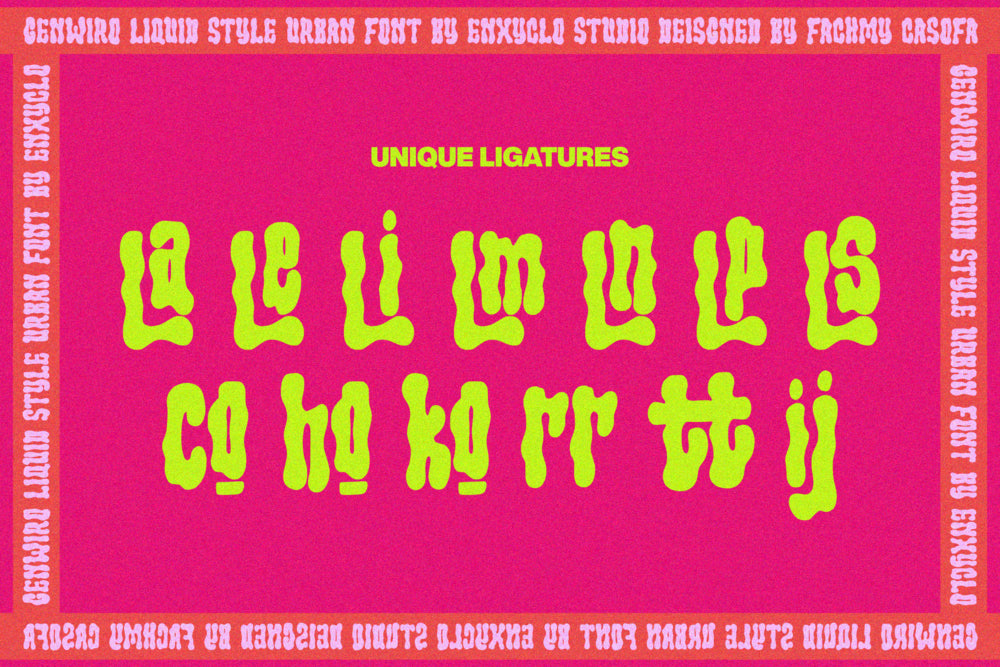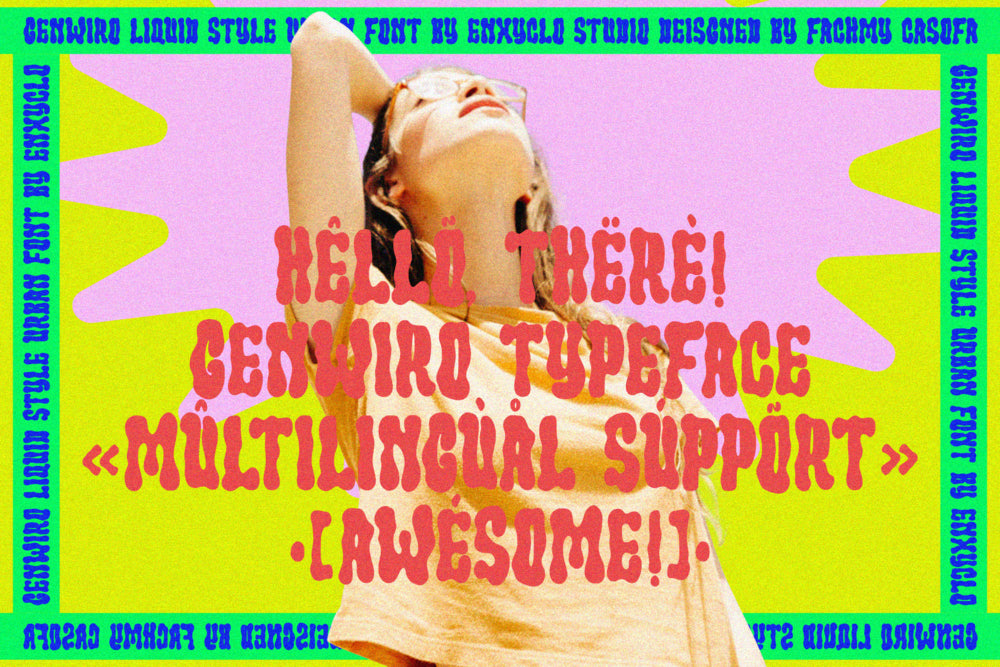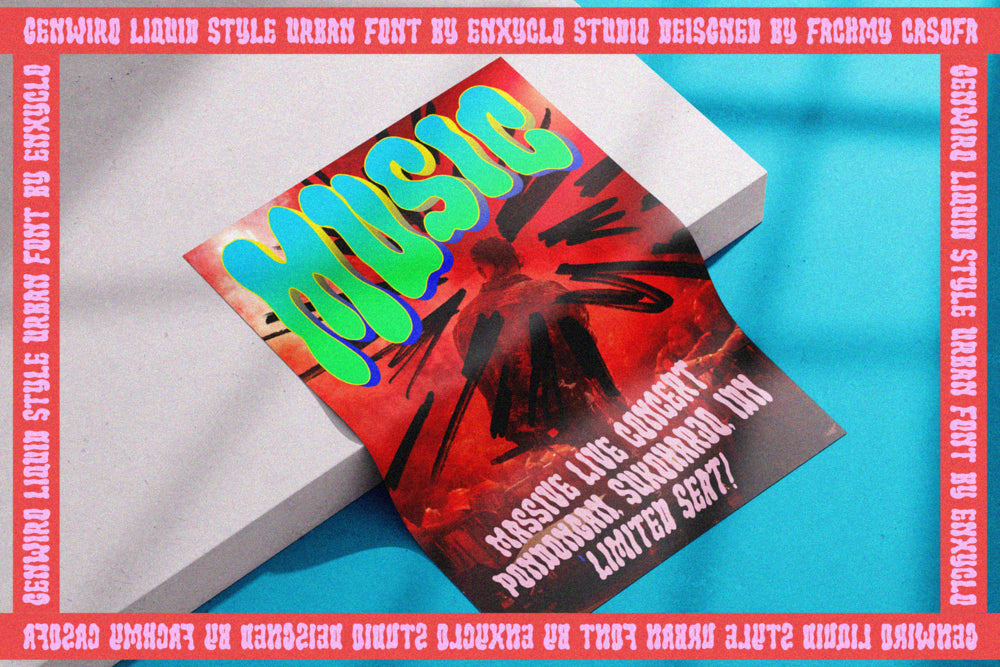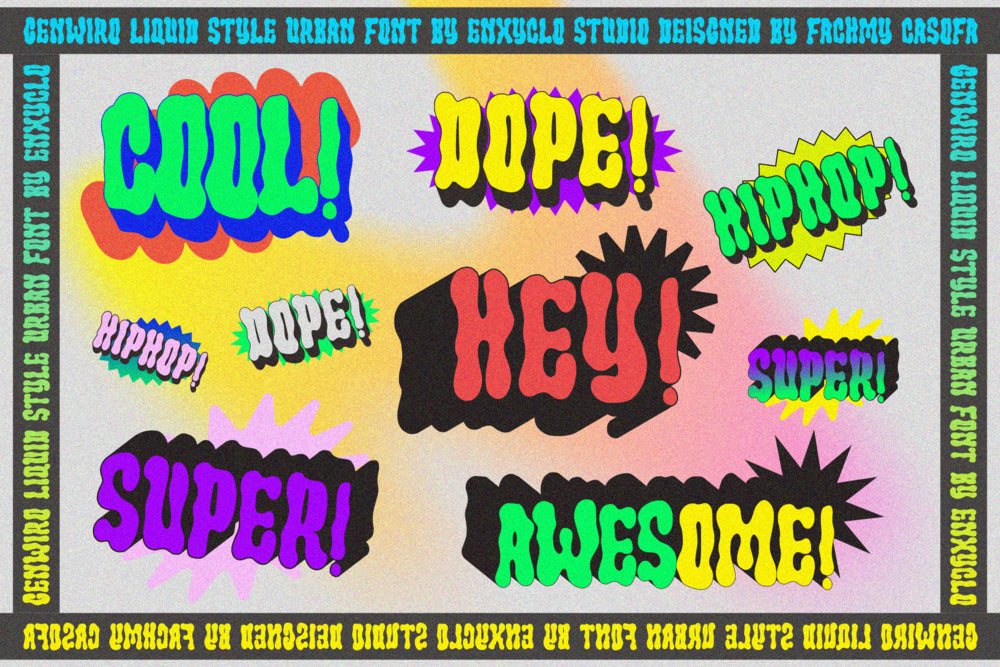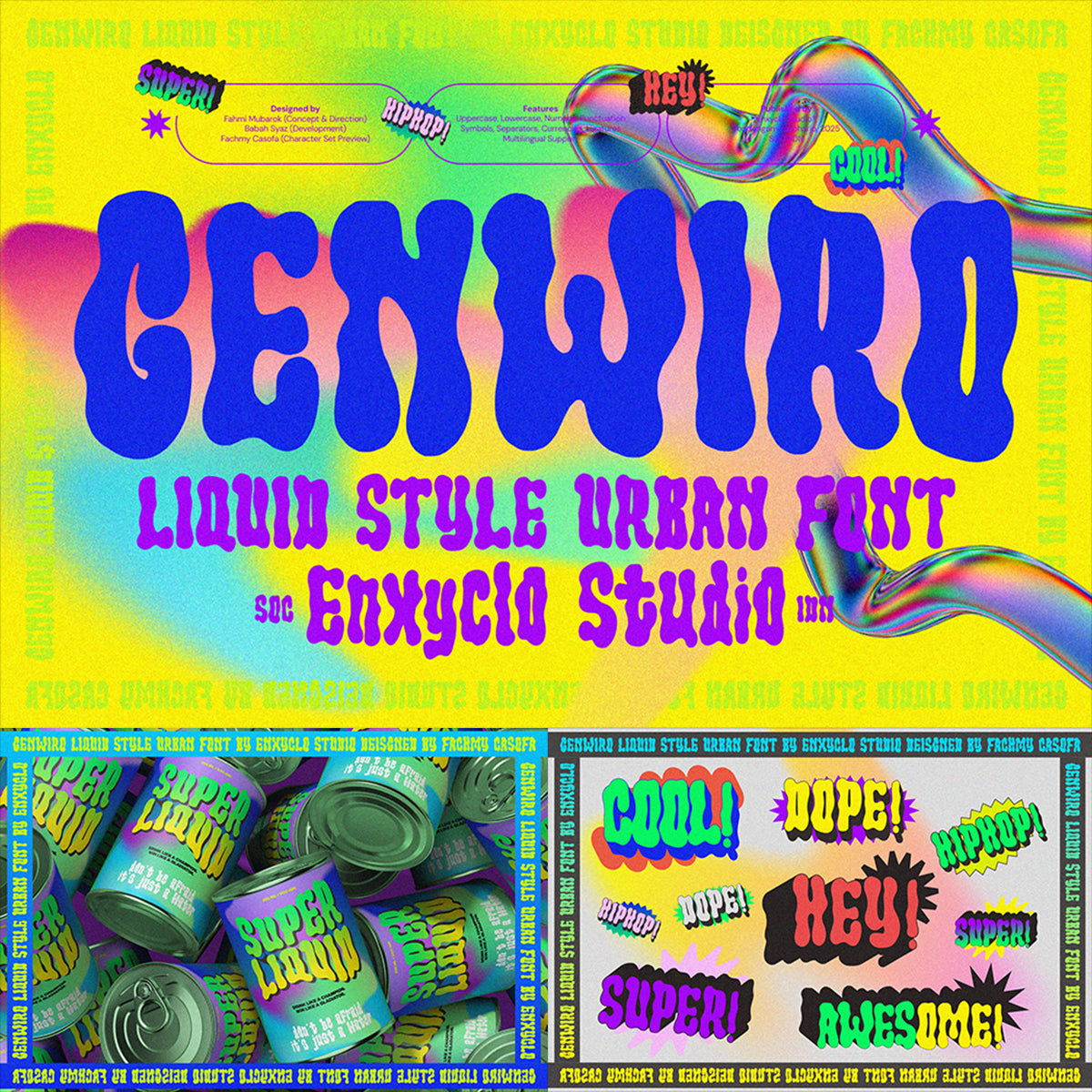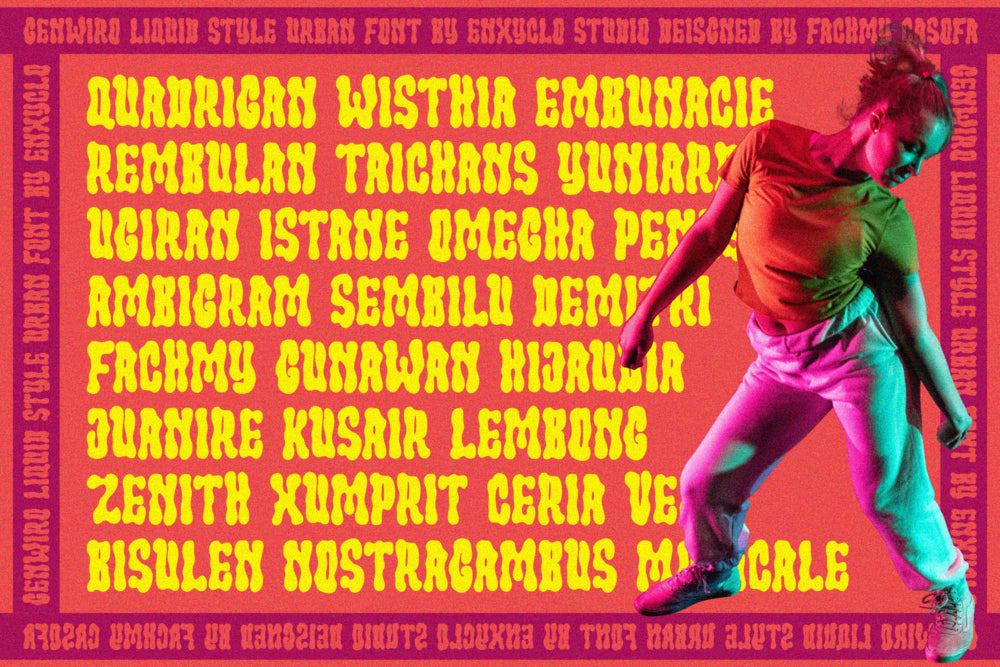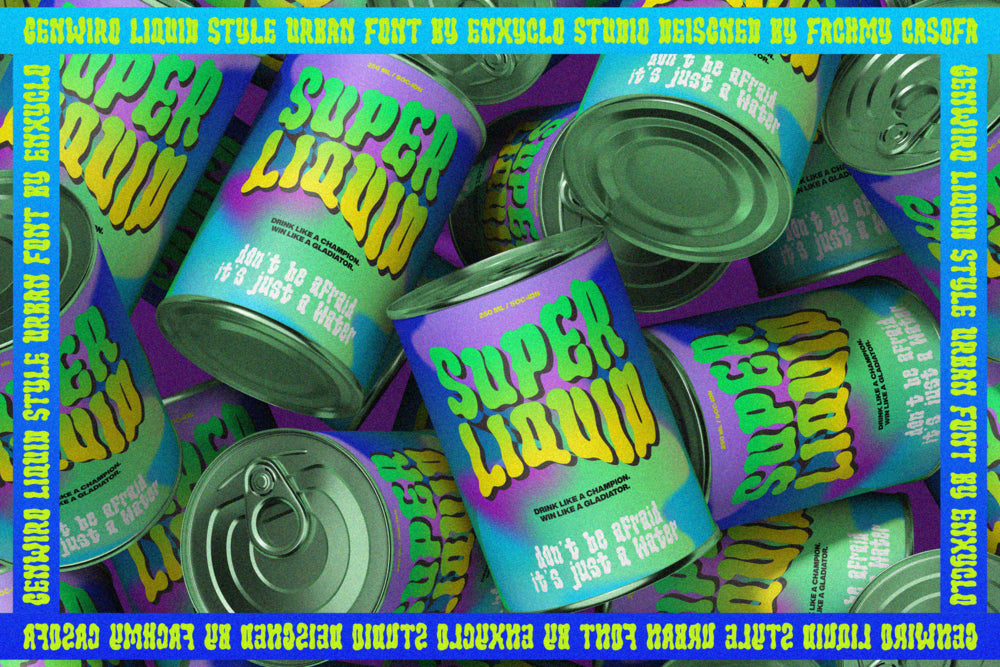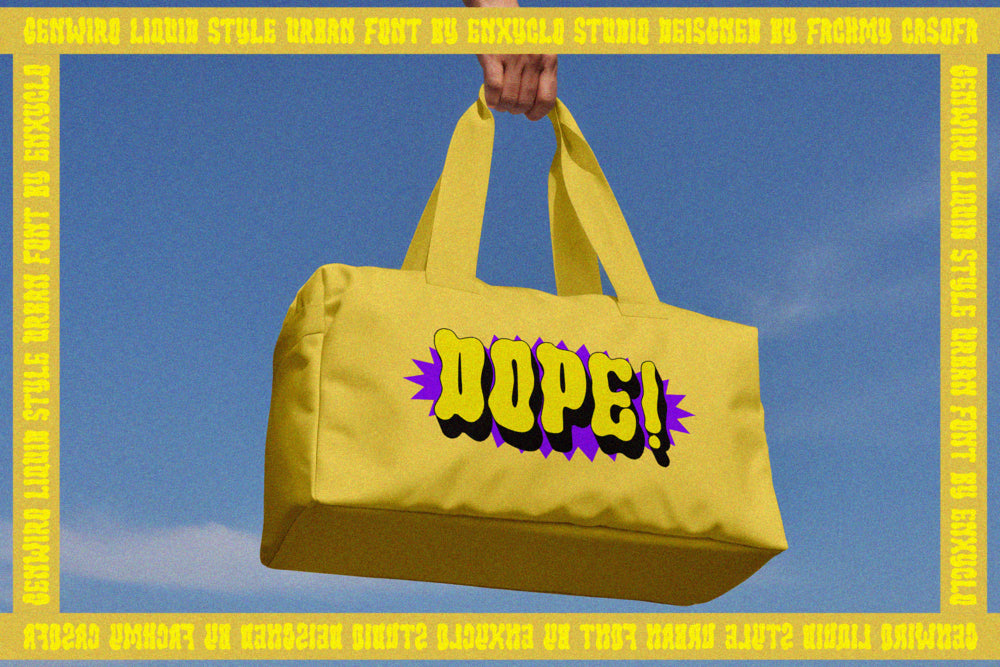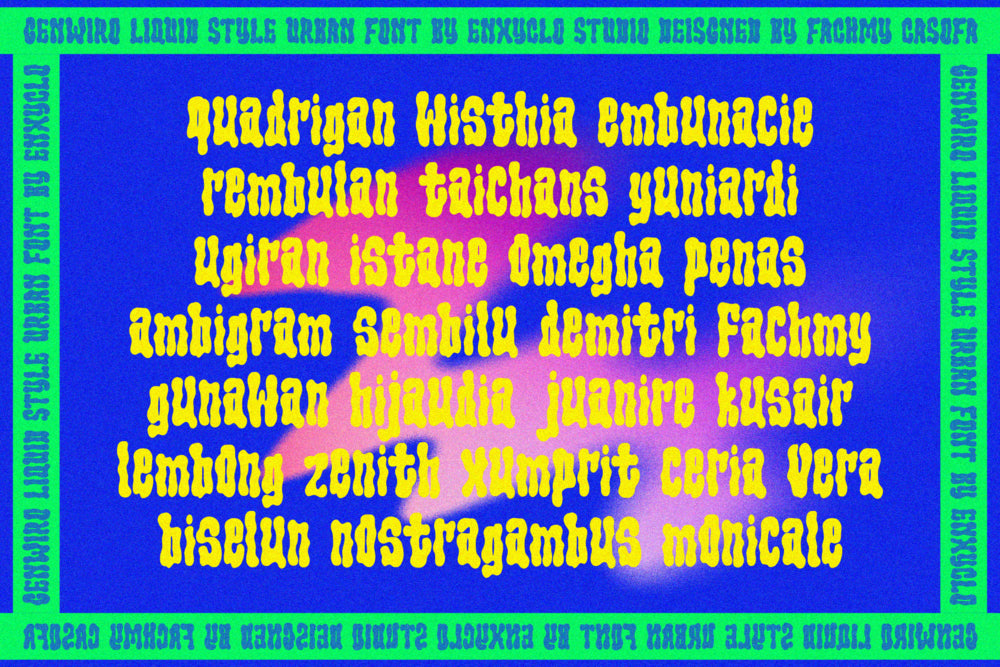
GENWIRO — Liquid Expressive Bold Urban Font
GENWIRO is a Liquid Expressive Bold Urban Font designed with a hand-drawn, free-flowing style that reflects modern street culture. It includes OTF, TTF, and WOFF formats, features uppercase and lowercase letters, numerals, punctuation, symbols, ligatures, and multilingual support.